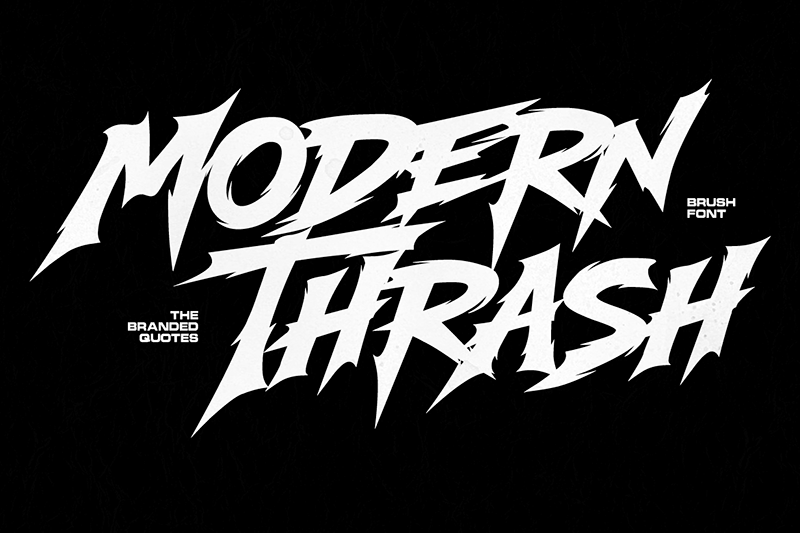
Preview and download Modern Thrash Font. Created by The Branded Quotes in Fancy Horror styles with Demo license.
Font name: | Modern Thrash |
Author: | The Branded Quotes |